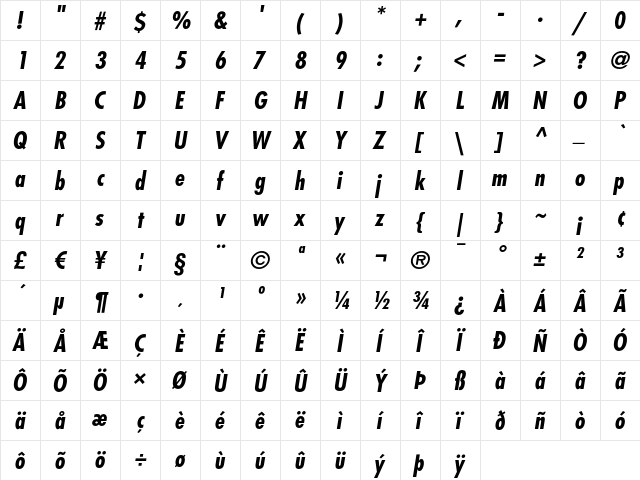
Futura LT Condensed Bold Oblique Font Preview
Design Context for Futura LT Typeface
Futura LT has a distinctly futuristic character, with geometric precision and clean angles that feel at home in technology, gaming, and sci-fi contexts. Its italic angle brings a sense of urgency and motion to the letterforms. The heavy weight commands attention and anchors typographic hierarchies. Its narrow stance lets it pack a punch even in space-constrained designs.